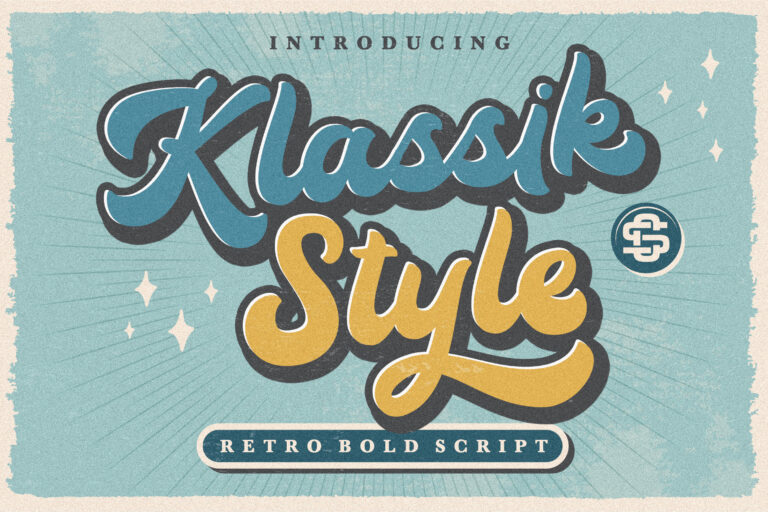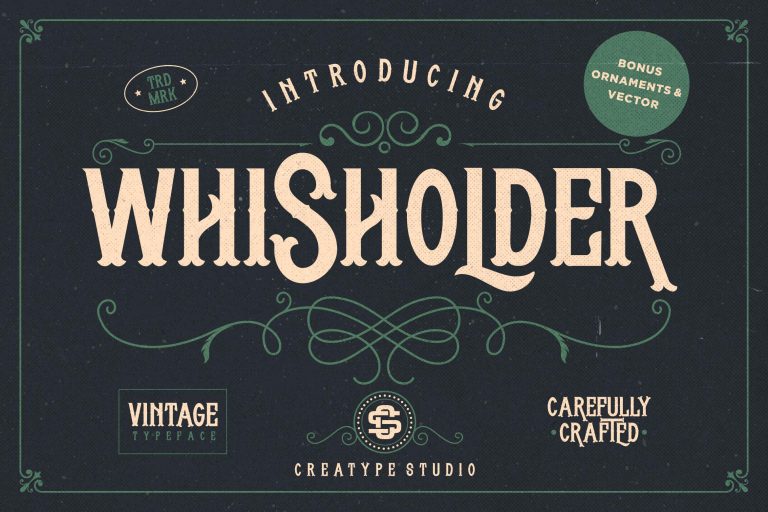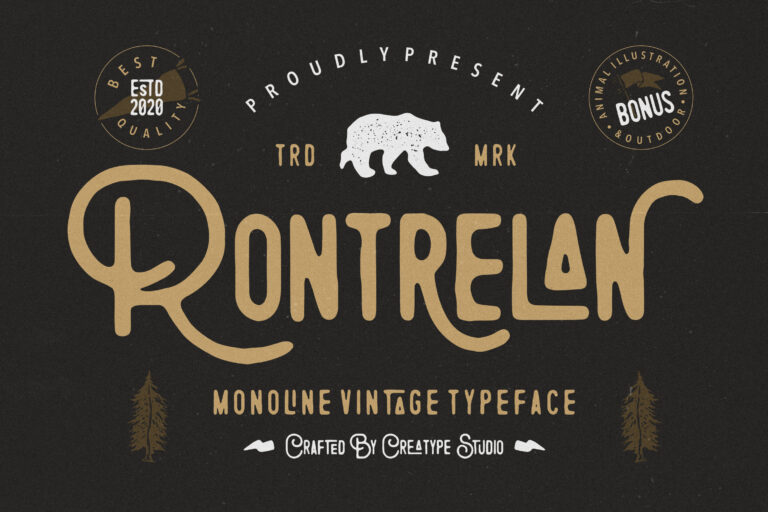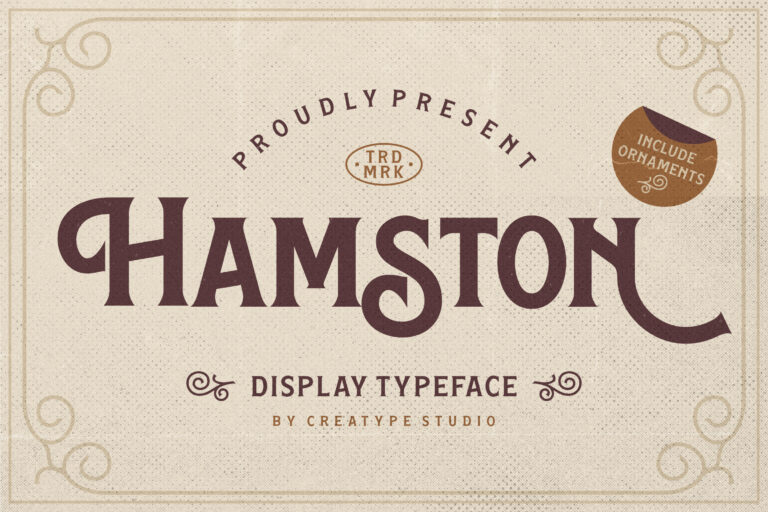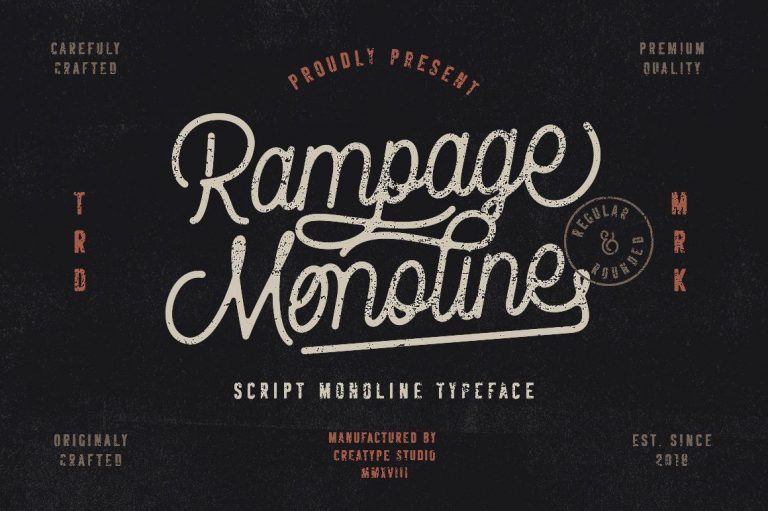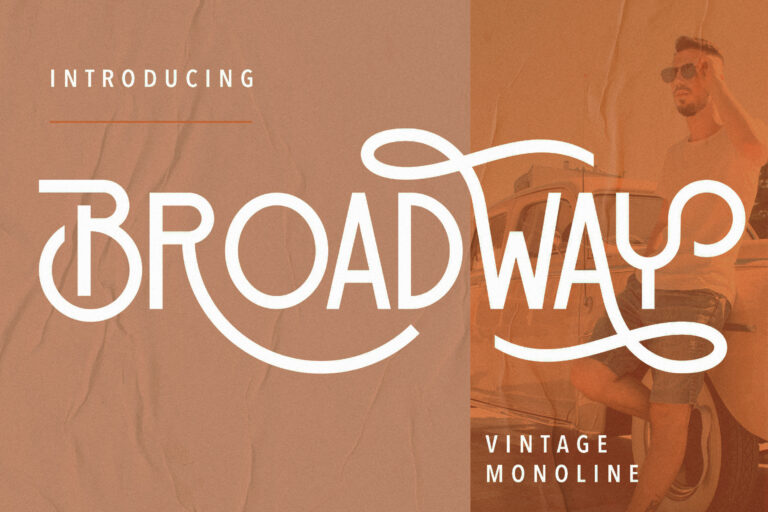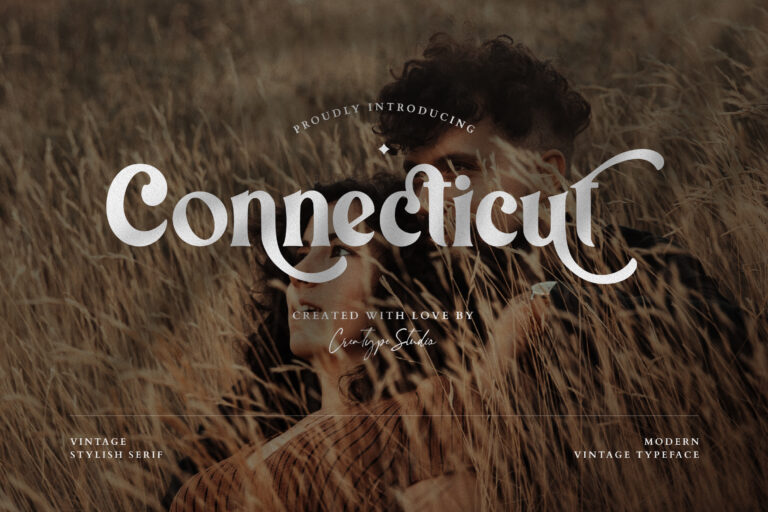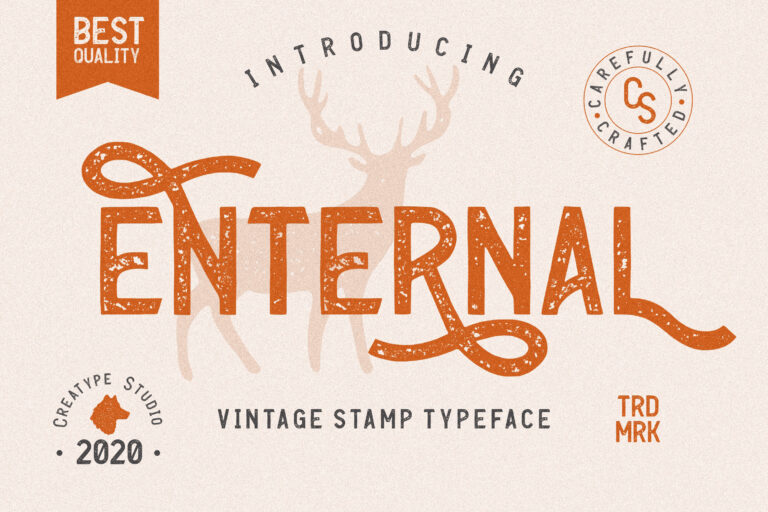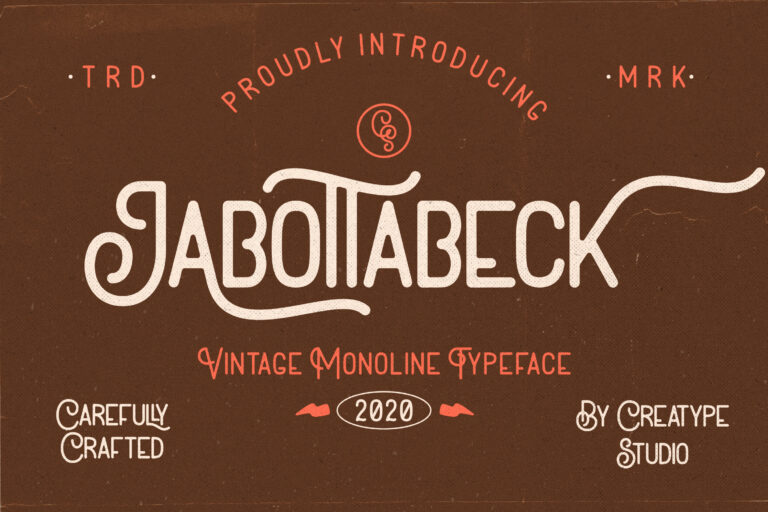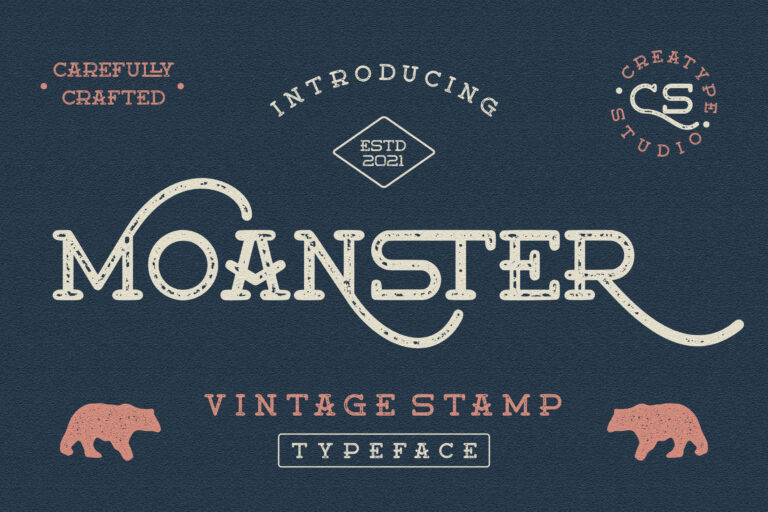
30 Remarkable Styles of Vintage Font to Reminisce the Old Days
Working with some kinds of vintage projects could be tricky if you haven’t found the key. In addition to the choice of color shades and suitable illustrations, one essential feature you shouldn’t miss out on is the font. With the right choice of vintage font, you will be able to present a touch of nostalgia in any project involving vintage or retro themes. Here is the complete list of excellent fonts to use when you are dealing with an antique style of graphic design.
1. Tropikana Monoline Vintage Typeface
Introduced as a carefully crafted vintage font, Tropikana brings back the old-fashioned style of product labels and advertisements. This monoline vintage typeface comes in a complete package of typography, including lowercase and uppercase, numeral and punctuation, ligature, alternate letters, as well as some international characters. This font will successfully convey a classical retro vibe whether you use it for packaging, advertisements, or invitation.
2. Chopin Script Font
Reawaken the trend of the hand-lettering font by using Chopin Script in your design. The elegant attributes and wonderful symmetry of this font will remind you of beautiful vintage letters from the good old days. You can feature those cursive beauties in your vintage-themed wedding invitation. The font will look as good when you use it as the main title of your website—because there’s nothing more welcoming than the flowing cursive of the antique script.
3. Moanster Vintage Stamp
Looking old but gold, Moanster Vintage Stamp is exactly what you need to present an extra touch of retro style in your design. Combine this font with earthy color tones such as beige or maroon to get the complete vintage ambiance. Besides, there are lots of other things you can do with Moanster since it supports multilingual letters in addition to typical letters and numeral cases.
4. Carnivalee Freakshow Font
Combining Western and vintage characters, Carnivalee Freakshow serves as a great addition to your retro project. This font can be used to display product labels or website headlines featuring the theme of old-fashioned circus and carnival. Its heavy graphics are also great for published works, such as magazines or booklets for a performance show.
5. Broadway Vintage Monoline
Broadway Monoline vintage font offers everything you need in antique typography, from the curves to the lines. In the past, this font style is usually featured in movie posters or show advertisements. Today, you can use it in practically any design project. Use it to highlight your antique store website or print it in large fonts to advertise your brand in a packaging set.
6. Monsieur La Doulaise Font
Monsieur La Doulaise represents the characters of calligraphy and hand lettering designs from the 1930s to 1950s in the United States. It is originally retrieved from The Script Collection of Charles Bluemlein. In a modern application like today, this font is considered a perfect choice to complement digital typography with vintage style in mind. You can maintain the authentic designs while expanding the script typeface.
7. Connecticut Modern Vintage Typeface
Who says vintage and modern can’t be in the same room? In Connecticut Typeface, you will see how those different styles complement each other. The font offers a vintage serif with a touch of a modern aesthetic. As a result, you will get the feeling of the 60s-70s era that conveys a timeless elegance. Supporting more than 10 languages with its international characters, this font is surely versatile for every occasion.
8. Team Spirit NF Font
Adorn your sport-related design project with a vintage vibe by including this font in the package. As the name suggests, Team Spirit Font provides the proper retro font to spice up your sports teams. This font is actually adapted from the standard typography of Monotype Script. In addition to classic letters as the main course, it comes with a signature ribbon banner at the bottom to support team unity.
9. Enternal Vintage Stamp Typeface
Coming from the big family of sans serif, Enternal Typeface is loaded with vintage features in the forms of textured effects and a multitude of ligature letters. This font will be an ideal match for any design project, from product packaging to branding posts. There is also a set of alternate fonts for specific letters if you are looking for an easy way to improvise.
10. ExtraOrnamentalNo2 Font
Fancy is the right word to describe this vintage font. Rich in ornamental and decorative effects, ExtraOrnamentalNo2 will give some flair to your designs. Therefore, this font should be on top of your list whenever you need to highlight the sense of the old-but-gold era in all uppercase letters.
That concludes the timeless options of vintage font styles to help you complement the old-fashioned designs. With those fonts in hand, you can transport any project into another era, from the classic 1920s to the retro vibe of the 80s. It’s such a good time to experience the best design from every glorious decade.